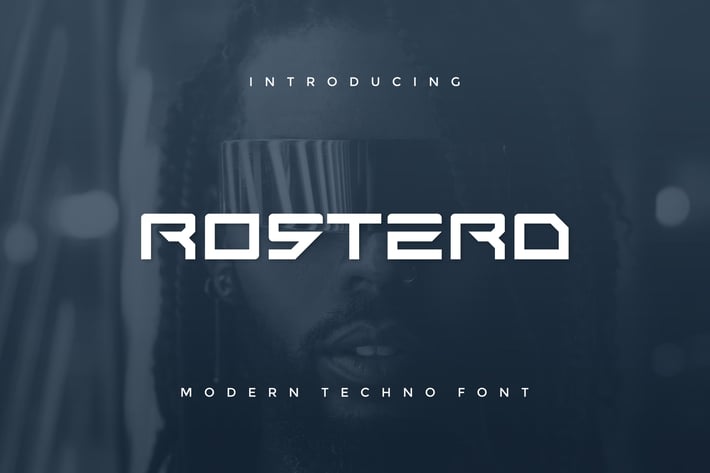
Rosterd Modern Techno Font
Introducing our new product Rosterd - Modern Techno Font
Rosterd is a bold, modern display font with playful flair, ideal for attention-grabbing headlines, logos, and diverse design projects. Versatile and readable in both digital and print, Rosterd adds a dynamic touch to your message.